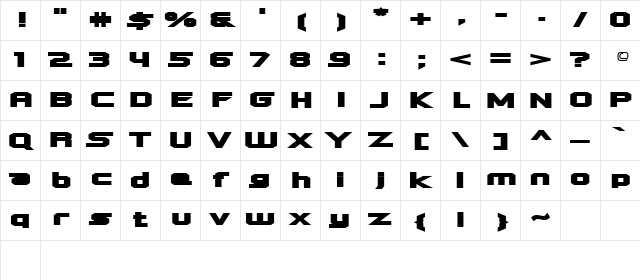
Quadrangle Regular Free Font
Quadrangle Regular
Quadrangle Family
Quadrangle Regular
Design Context for Quadrangle
Quadrangle is a composed and adaptable typeface that performs quietly and consistently across a wide range of design contexts.